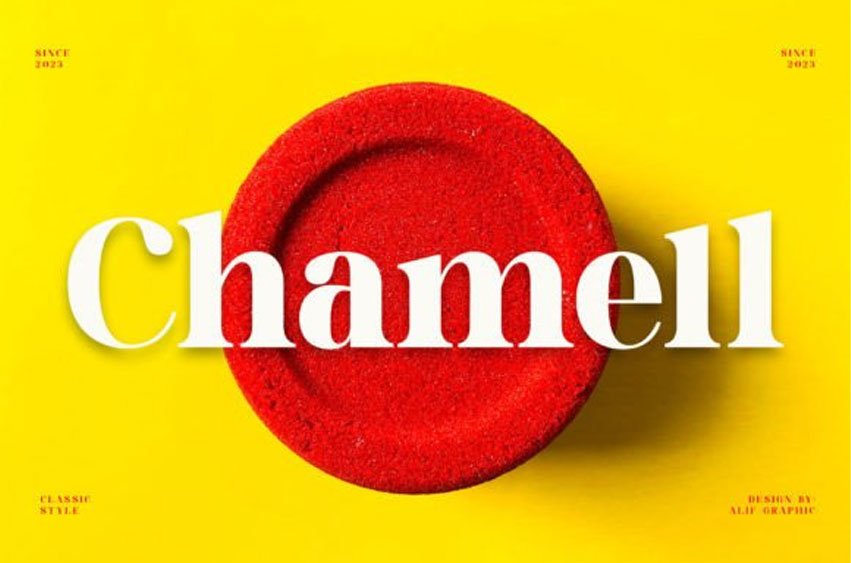
Chamell Font is a modern serif font that effortlessly blends sophistication with contemporary style. With clean lines and elegant serifs, Chamell is the perfect choice for projects seeking a refined and timeless aesthetic.
Whether used in editorial design, branding, or other applications, this font exudes a sense of modernity while maintaining a classic charm. Elevate your typography with Chamell, where tradition meets the present in a harmonious serif design.